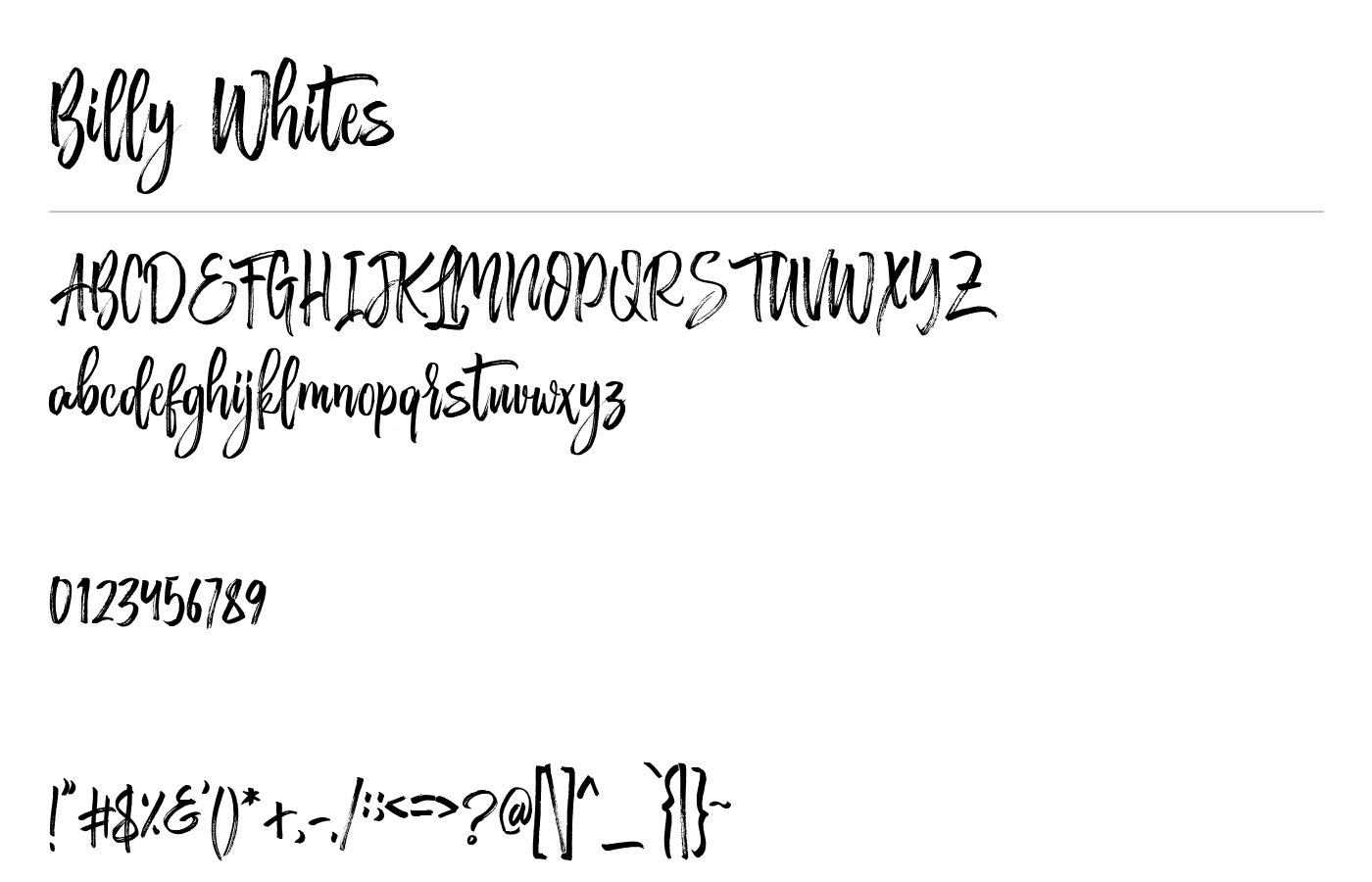
Billy Whites is a lively and textured brush script font with a hand-painted feel, featuring uneven strokes and playful curves that give it an energetic and artistic vibe. Its tall, narrow letterforms and casual style make it perfect for creative projects, branding, and headlines where a personal, expressive touch is desired. This font works especially well for modern, youthful designs that want to convey warmth and individuality.
Billy Whites Font
About Billy Whites Font
| Font family | Billy Whites Font |